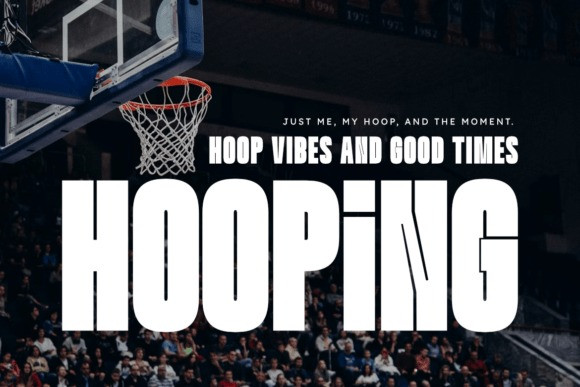
Sundown Font
Sundown Font is a confident, striking modern condensed sans serif display font designed to deliver maximum visual impact with a clean, contemporary aesthetic.It’s incredibly thick, solid weight and subtly rounded edges create a bold yet approachable presence, perfect for powerful headlines, fashion branding, music event posters, editorial layouts, and high-impact digital design.
Sundown offers extensive multilingual support, making it a versatile and professional choice for projects that need to stand out with both strength and style.